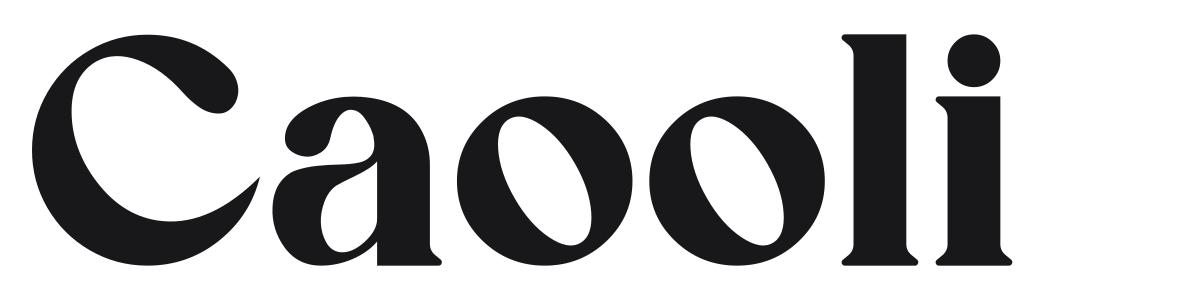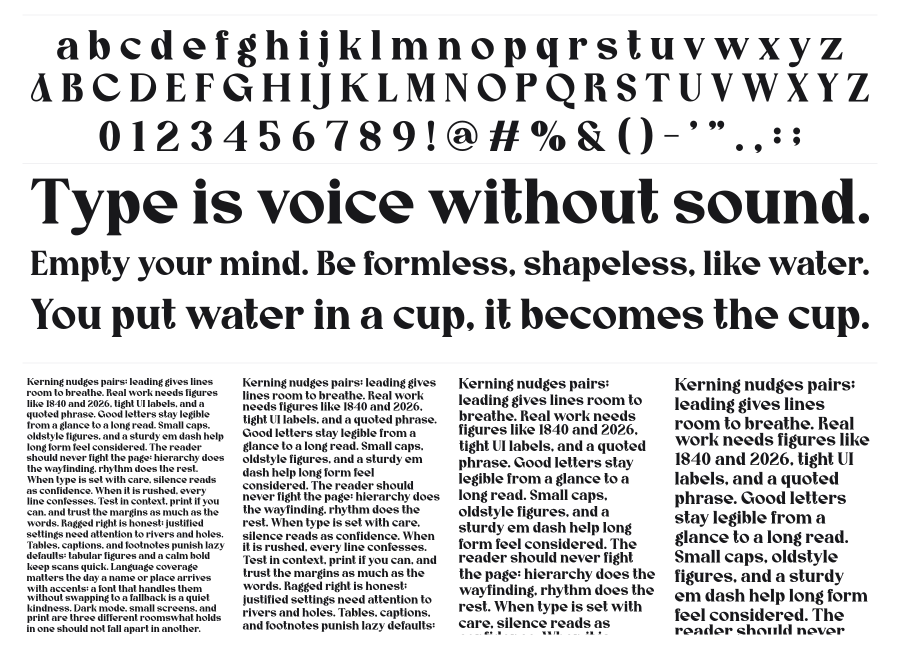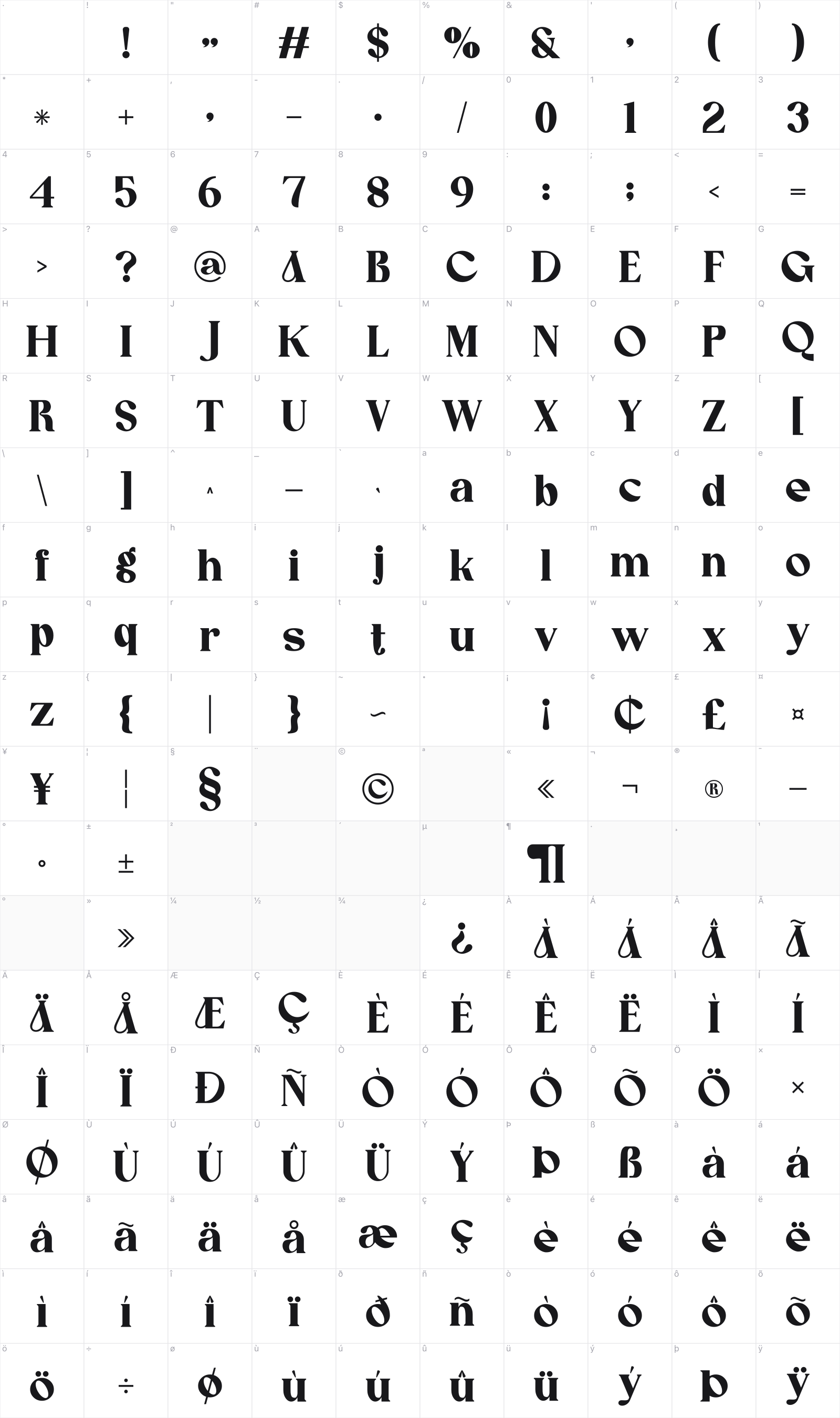
Caooli
Caooli is a bold modern serif drawing deep from the Didone tradition, pairing massive thick stems with near-hairline thins for dramatic stroke contrast. The wide, confident proportions give it a strong editorial presence at headline sizes. It fits naturally in fashion editorial, luxury branding, and anywhere bold typography needs to carry weight without feeling dated.